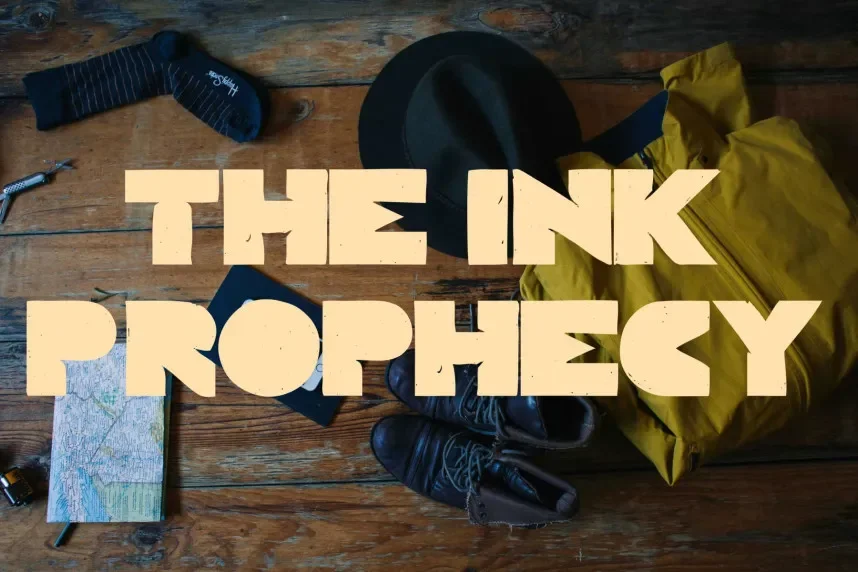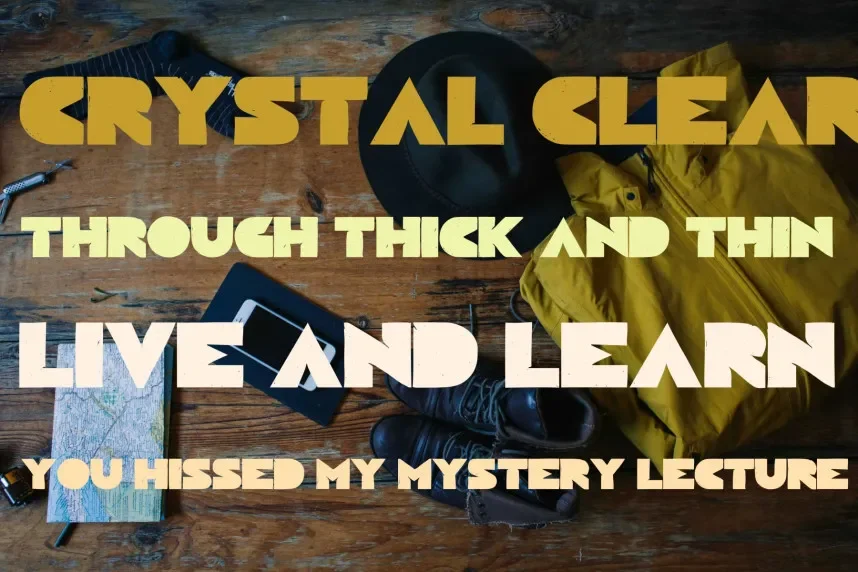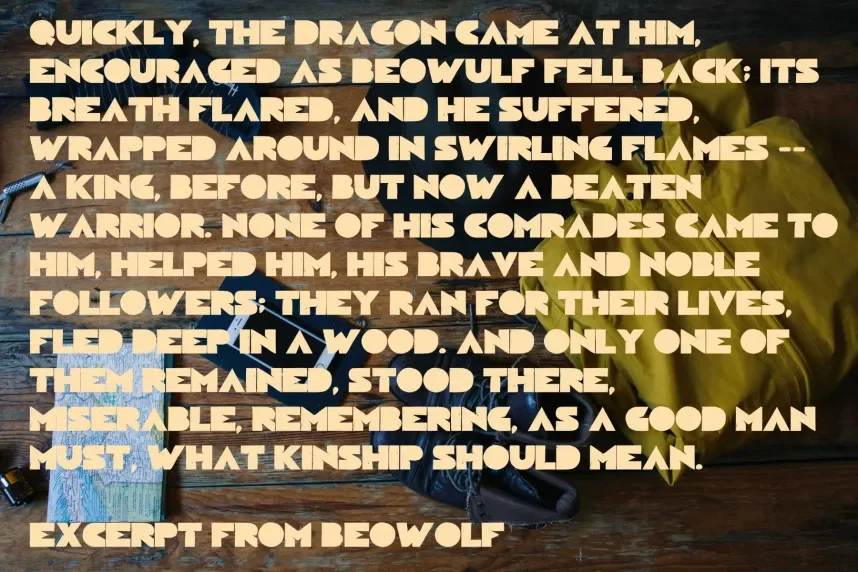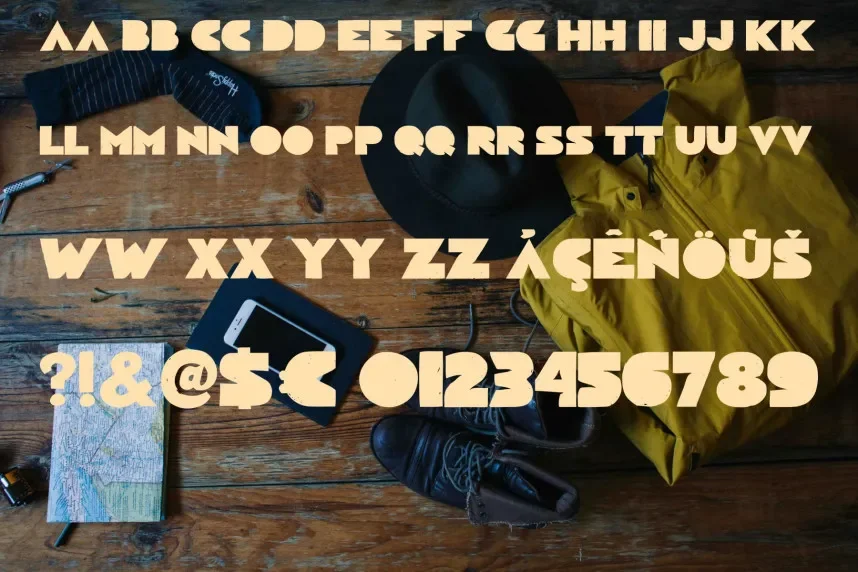
The Ink Prophecy Font is a handwritten display typeface designed to solve the need for expressive lettering while keeping short text readable. Designers often use handwritten fonts for branding, posters, and social media when standard sans-serif or serif fonts feel too rigid.
The Ink Prophecy features irregular strokes, textured lines, and natural curve variations that reflect ink-based writing. Letterforms show uneven pressure and organic connections, which add character without heavy decoration. The font is best suited for short phrases, headings, and logos rather than long paragraphs. It usually includes uppercase letters, numerals, punctuation, and limited alternates.